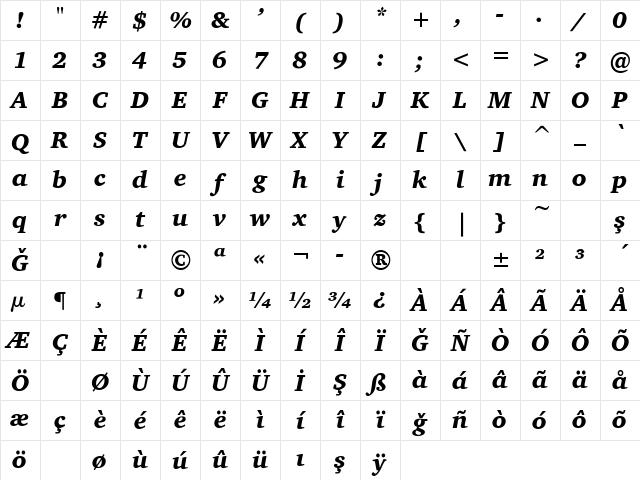
Bits_ Charter Bold-Italic
Style: Bold-Italic
Bits_ Charter Bold-Italic
Design Context for Bits_ Charter
Bits_ Charter is a composed and adaptable typeface that performs quietly and consistently across a wide range of design contexts. The slanted form adds forward momentum and visual energy. Its bold stroke weight gives it real presence on the page.
Pro Tip: Use Bits_ Charter for emphasis, pull quotes, and subheadings where its slanted energy can add rhythm to the layout.